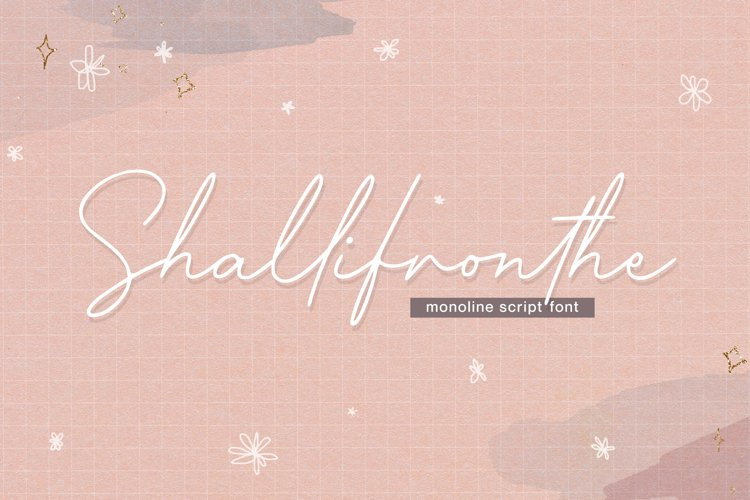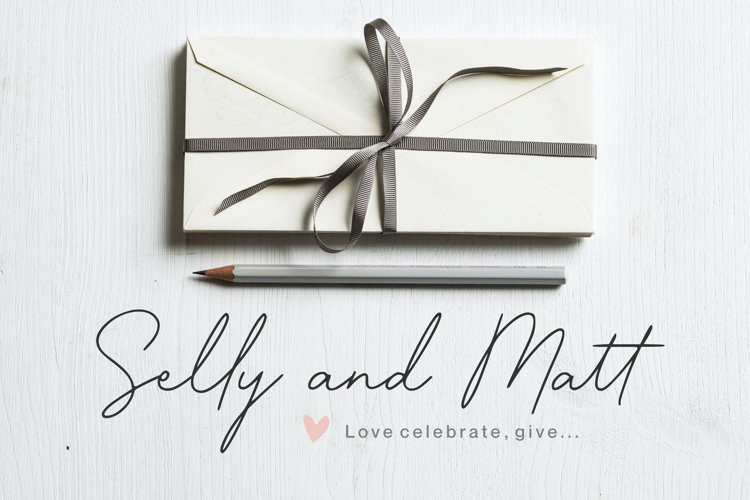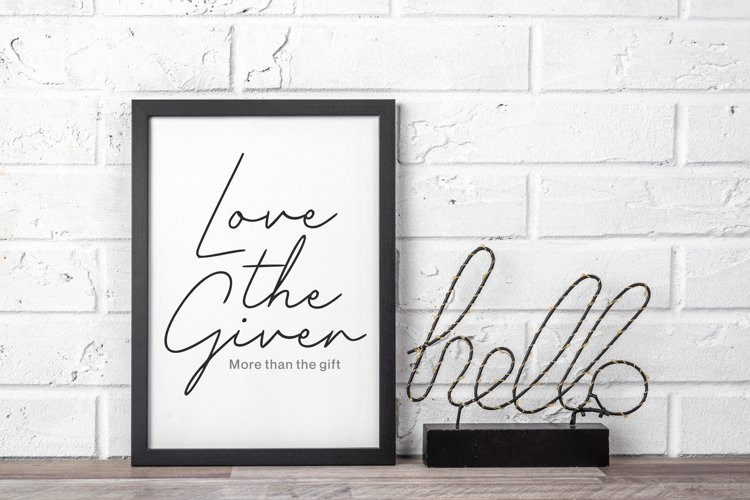
Shallifronthe Font
Shallifronthe FontShallifronthe is A Monoline Script Font
Shallifronthe is perfect for product packaging, branding project, megazine, social media, wedding, or just used to express words above the background.